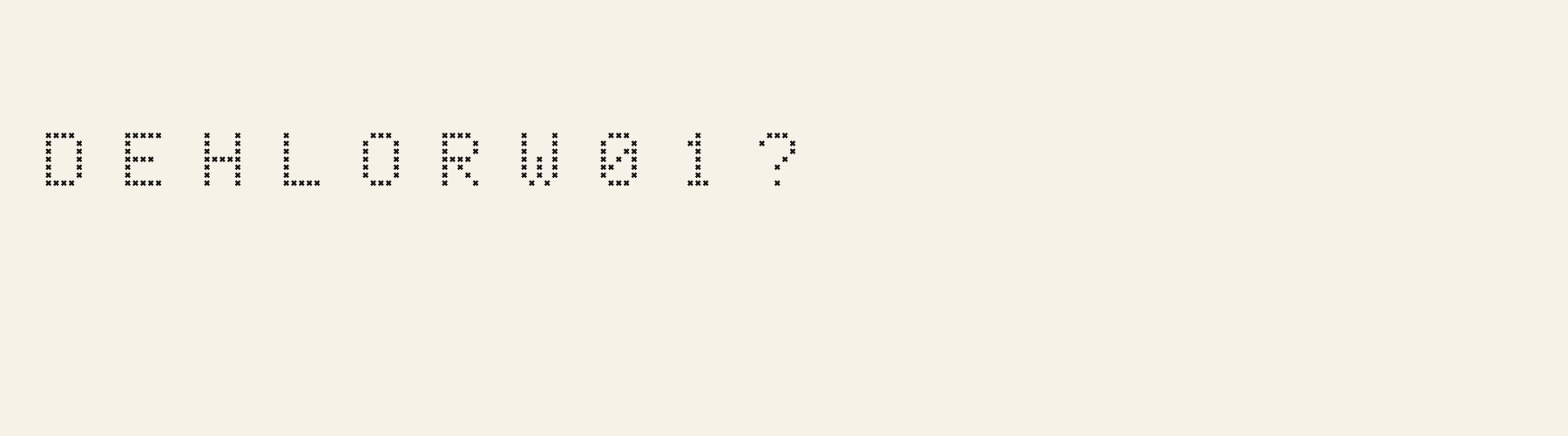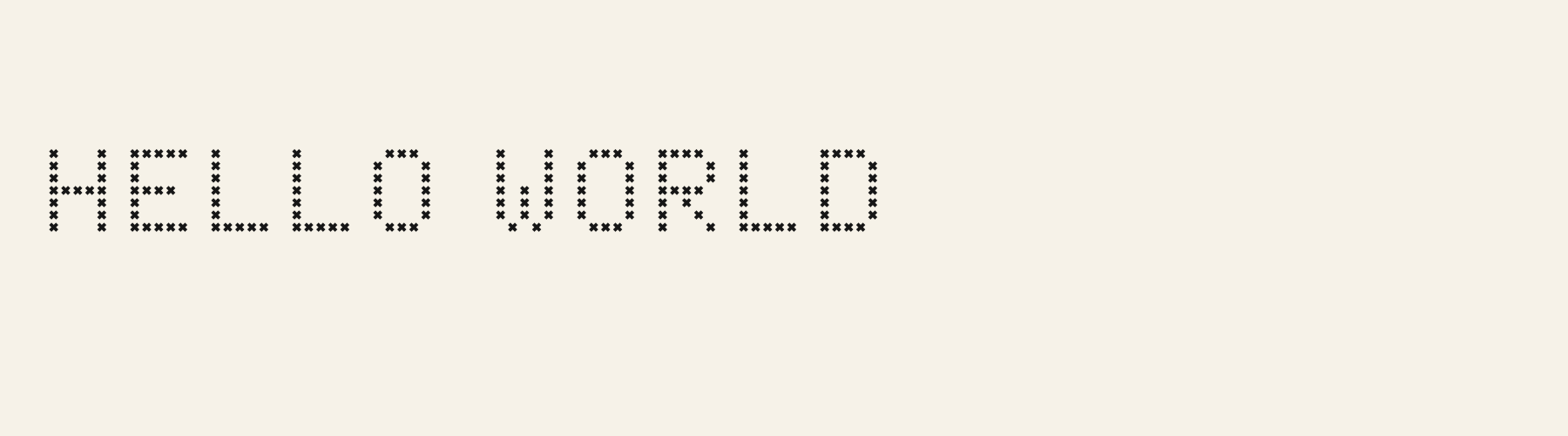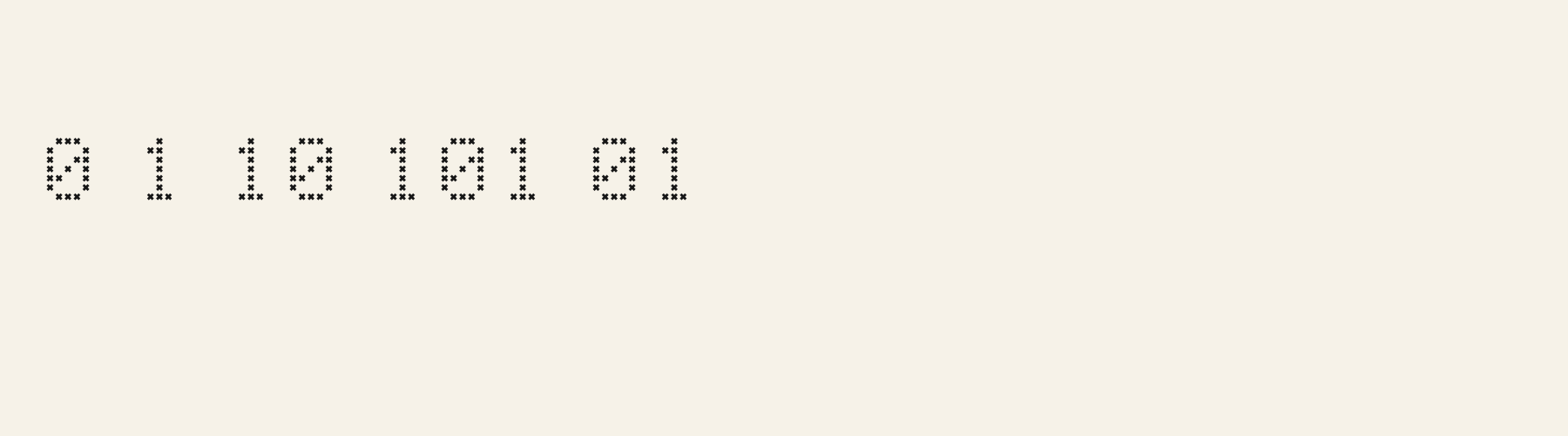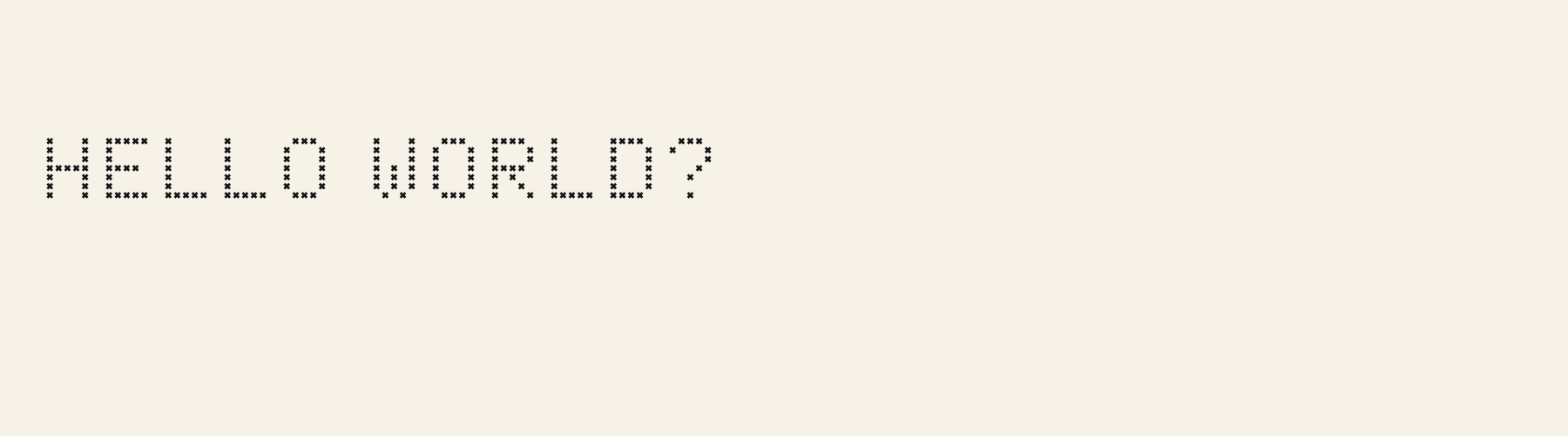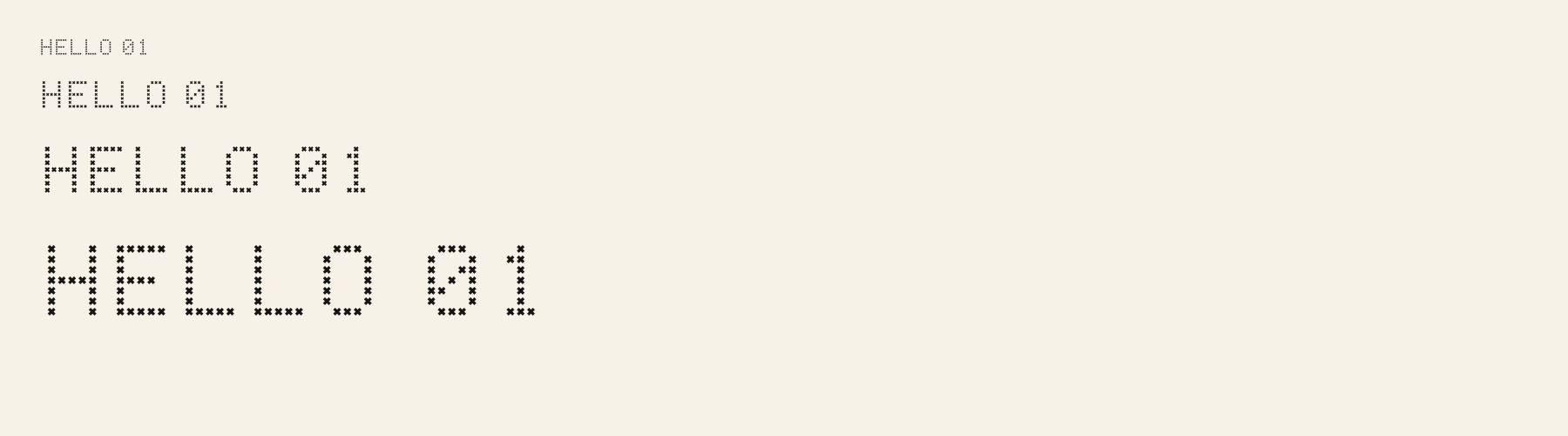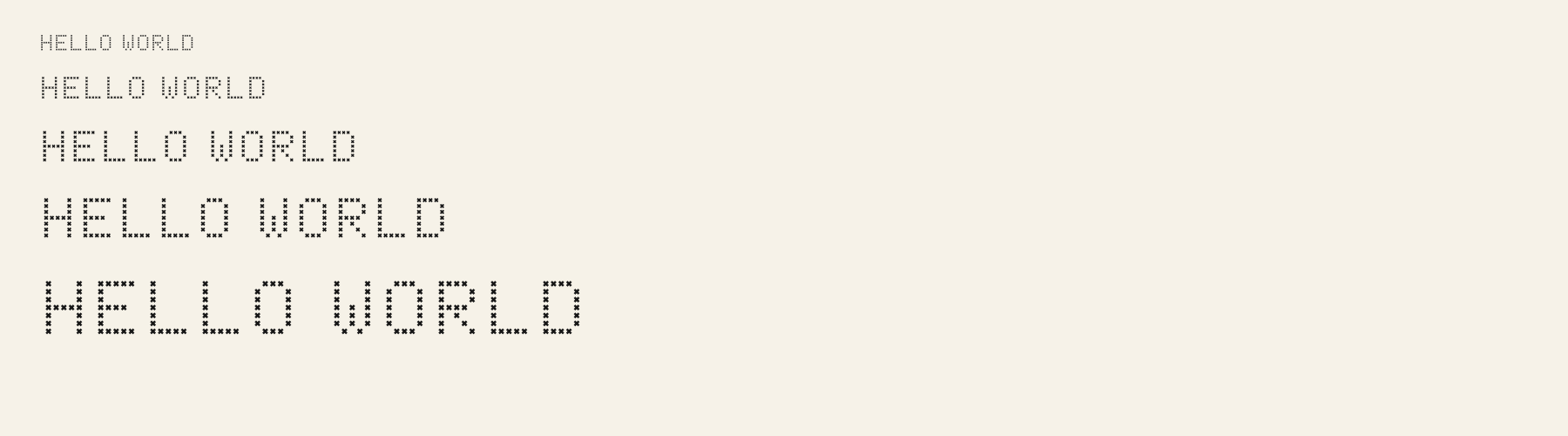
Pixel Cross Stitch Grid Threaded X Mark Display Font
Pixel Cross Stitch Grid draws its letters with small, separated X marks whose crossed centers remain visible in the larger specimen.
Threaded X Mark Display Letterforms
Pixel Cross Stitch Grid draws its letters with small, separated X marks whose crossed centers remain visible in the larger specimen. The O has upright sides and stepped corners around a generous empty center. The R combines a squared upper bowl with a diagonal leg that descends in distinct marks, while the W brings a short central rise between tall outer stems. Even the straight strokes have a dotted rhythm because neighboring crosses stay apart. The result feels airy and orderly, with a textile character that softens the rigid letter skeletons. Broad spacing gives each letter room to show its individual marks.
Preview your actual Latin wording, checking the R's diagonal leg, the W's central rise, and the distinction between O and zero. Inspect whether the X marks remain separate after resizing or printing. Check any other script independently with an appropriate supporting font.
Try this face for short headings or craft labels, with a plain sans serif for descriptions and instructions. Its separated crosses create an interrupted texture, so continuous strokes in the supporting text can provide a calmer reading rhythm.
Pixel Cross Stitch Grid: letterforms and layout
Compare smaller and larger previews to check whether the crossed centers remain distinct. The larger setting should help reveal the individual diagonal strokes; inspect whether the smaller setting preserves their textile character or turns them into dots.
Pixel Cross Stitch Grid breaks each letter into separated X marks, giving the words a light, perforated texture. Choose it when the individual threadlike marks should contribute to the heading's character.
Pixel Cross Stitch Grid font in use
Product label. The separated X marks echo needlework, giving a craft kit label a visible connection to its contents. MADE WITH LOVE
Card or invitation. Airy lettering and threadlike diagonals bring a handmade mood to a short greeting with plenty of surrounding space. CRAFT NIGHT
Poster. The open letter interiors and repeated crosses give a short event title a decorative rhythm across the poster.
About Pixel Cross Stitch Grid
The lowercase is as tall as the capitals: its x-height measures 100% of the cap height, level with the tallest of the 13 pixel fonts. Ascenders on b, d, h, k and l line up with the capitals (100% of their height), and g, j, p, q and y barely drop below the baseline. It sets wide: an average lowercase letter, spacing included, is 97.8% as wide as the capitals are tall (an average capital, 97.8%), 20.6% more than the median for pixel fonts, so the same words take a longer line. The o is an upright oval, 0.69 times as wide as it is tall, and every capital has the same width. O stands exactly as tall as H and sits on the baseline, with no overshoot.
Ink covers 12.1% of each lowercase letter's box (its advance width by the cap height), lighter than 11 of the 12 other pixel fonts. Strokes keep one thickness in every direction: the sides of o and O measure the same as their tops and bottoms.
Its 159 characters include 116 Latin letters, plus 43 figures, punctuation marks and symbols; 64 of the Latin letters are accented or special forms beyond A to Z. The word space measures 50.8% of the cap height, and the blank space either side of a lowercase letter takes up 29.4% of its width. The font carries no kerning, so spacing comes from each letter’s own side bearings. All ten figures share one width, so columns of numbers line up.